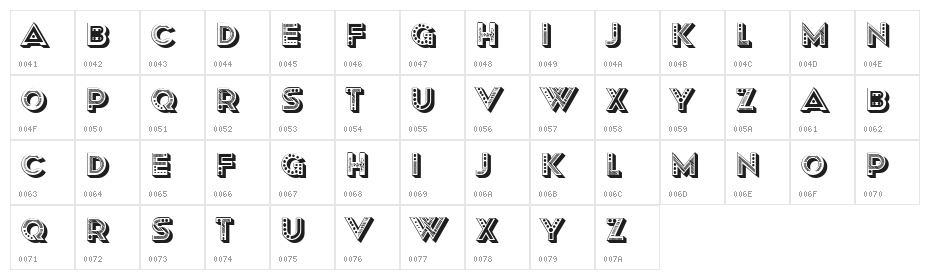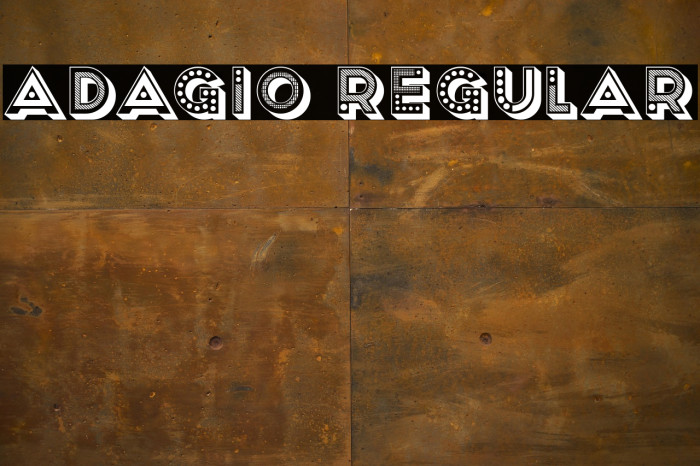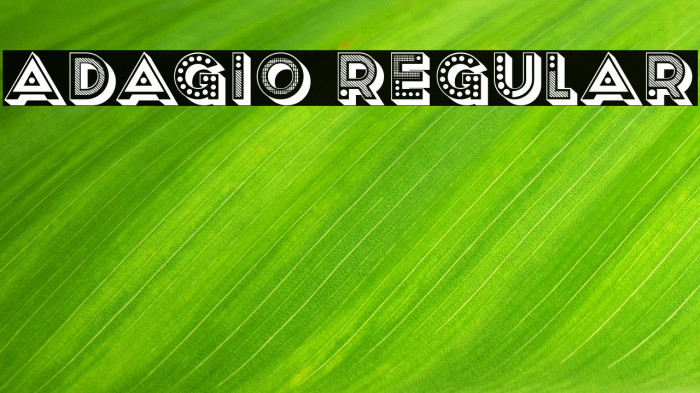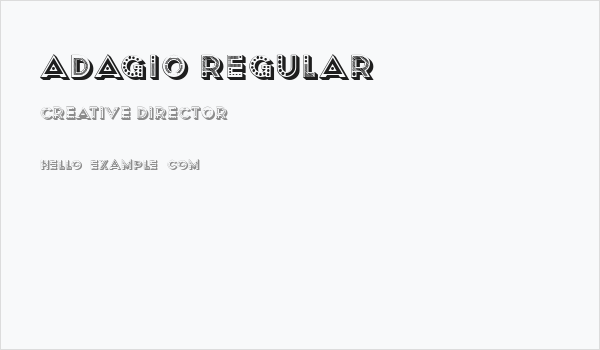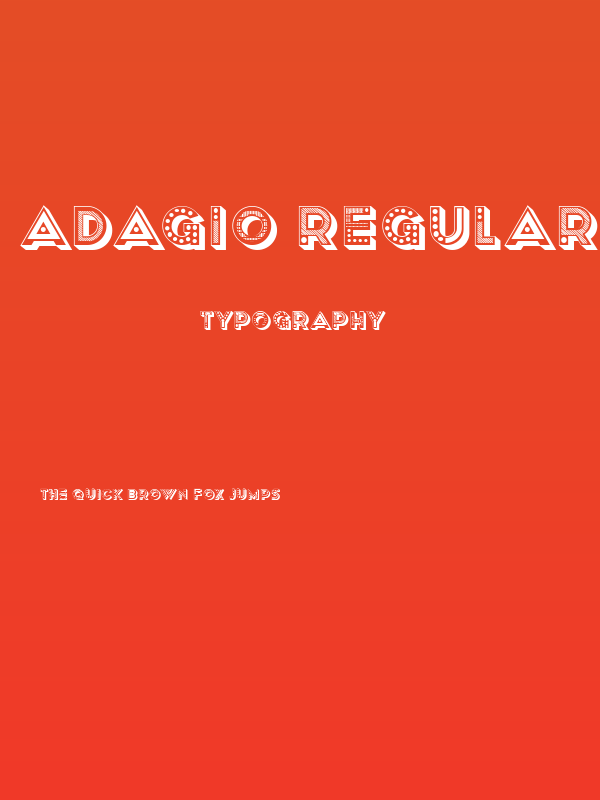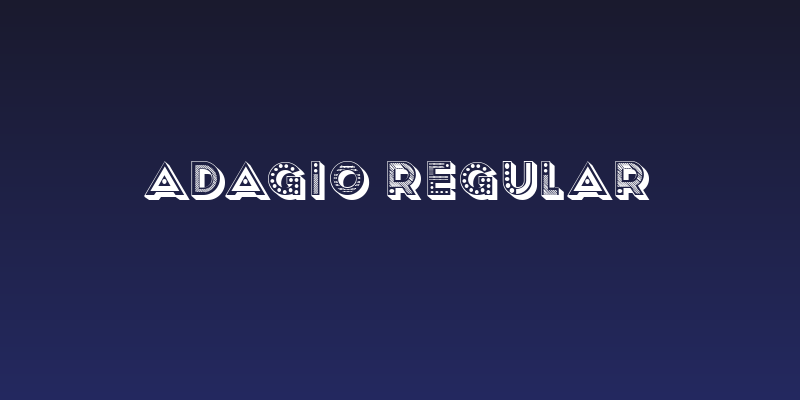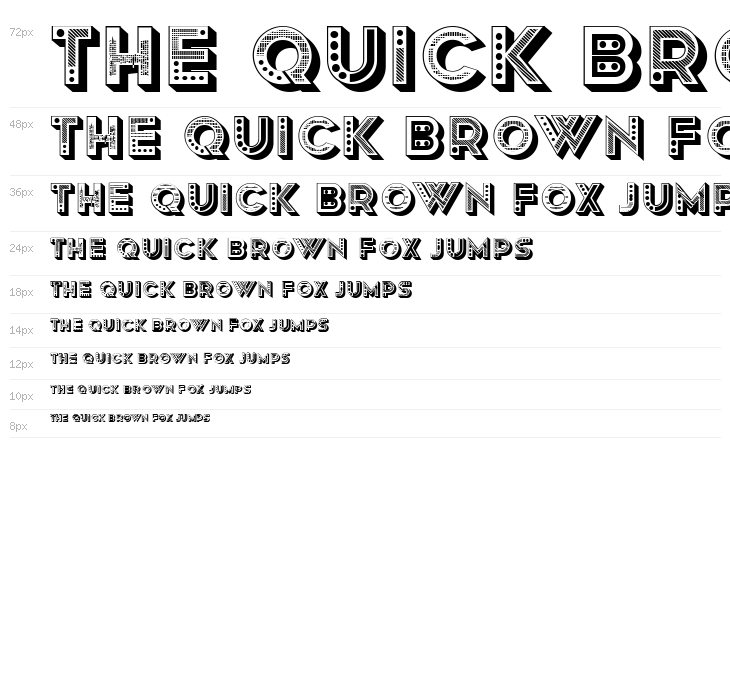
Adagio Regular Font
Adagio Regular Description
This font features a bold and decorative style with a three-dimensional effect. Each character is outlined with a thick black border, enhancing its visibility and impact. The interior of the letters is filled with various patterns, including dots, stripes, and diagonal lines, adding a playful and dynamic element to the design. The uppercase letters are uniform in height, creating a cohesive look. This font is ideal for projects that require a strong visual presence and a touch of creativity.
| Proposed Projects | Ideal for posters, headlines, and branding materials that need a striking and creative touch. |